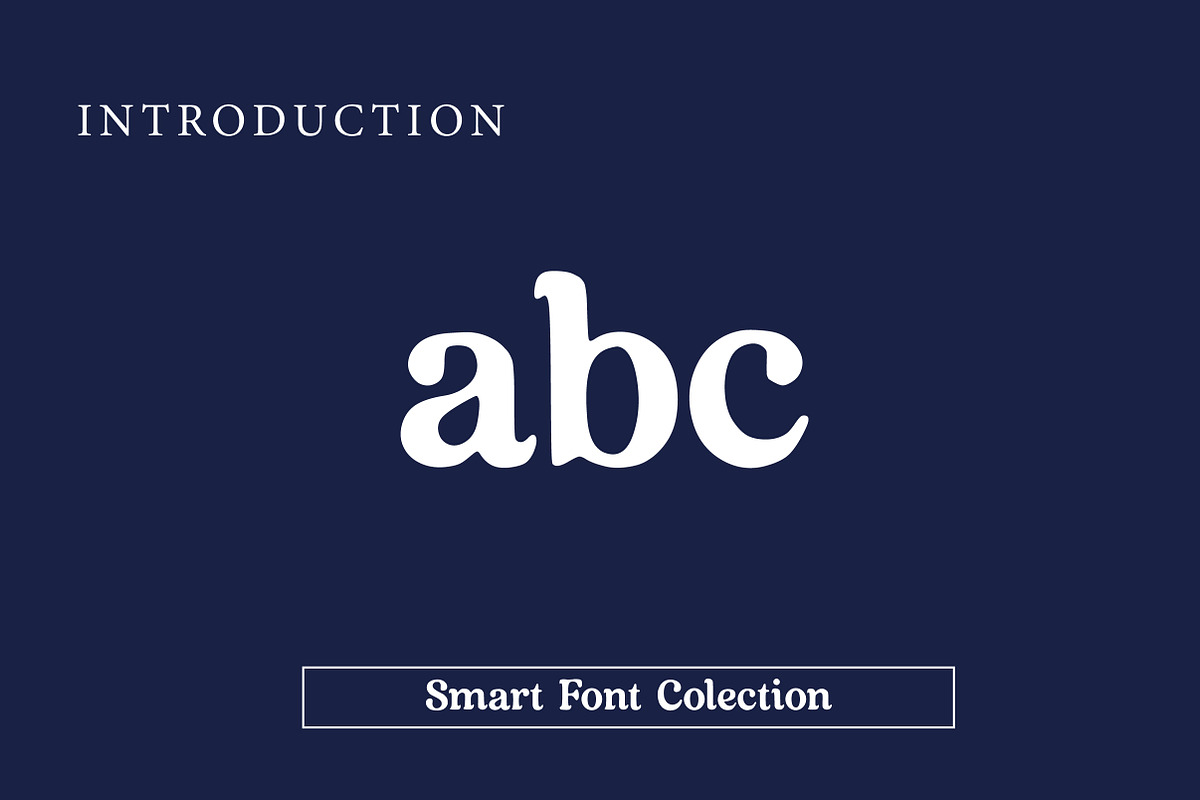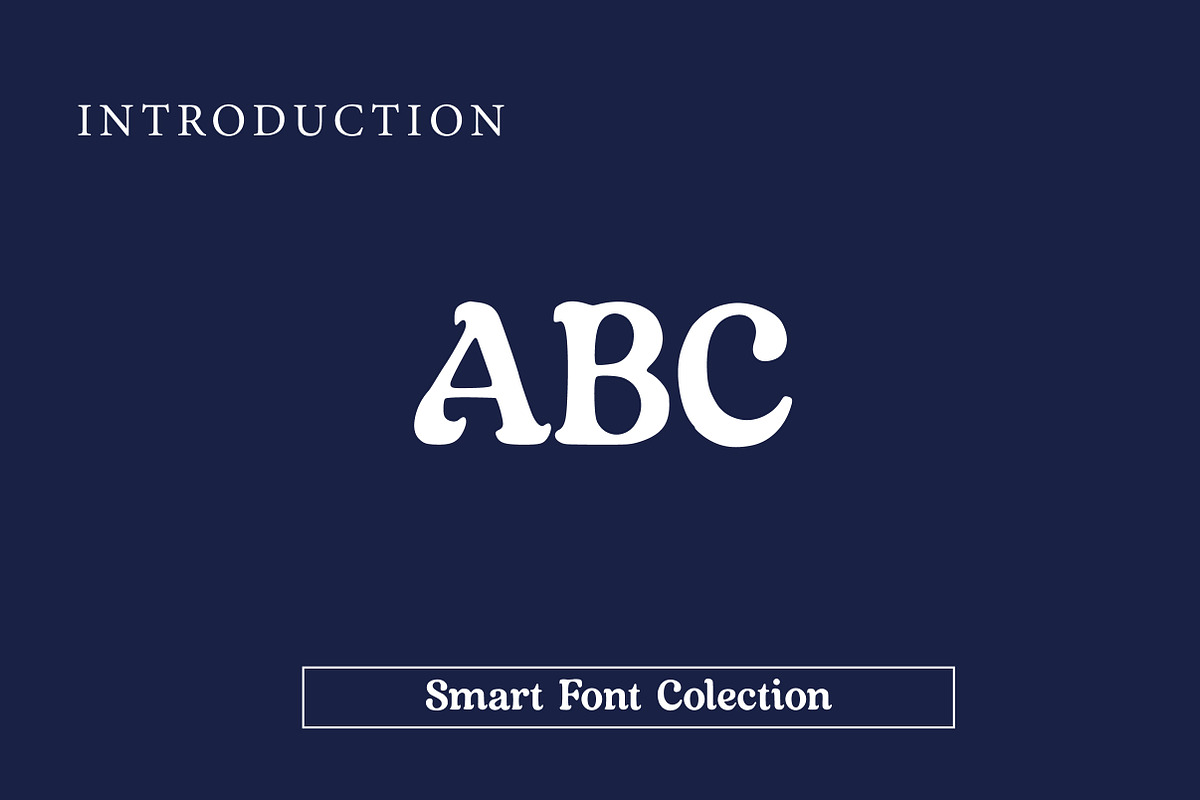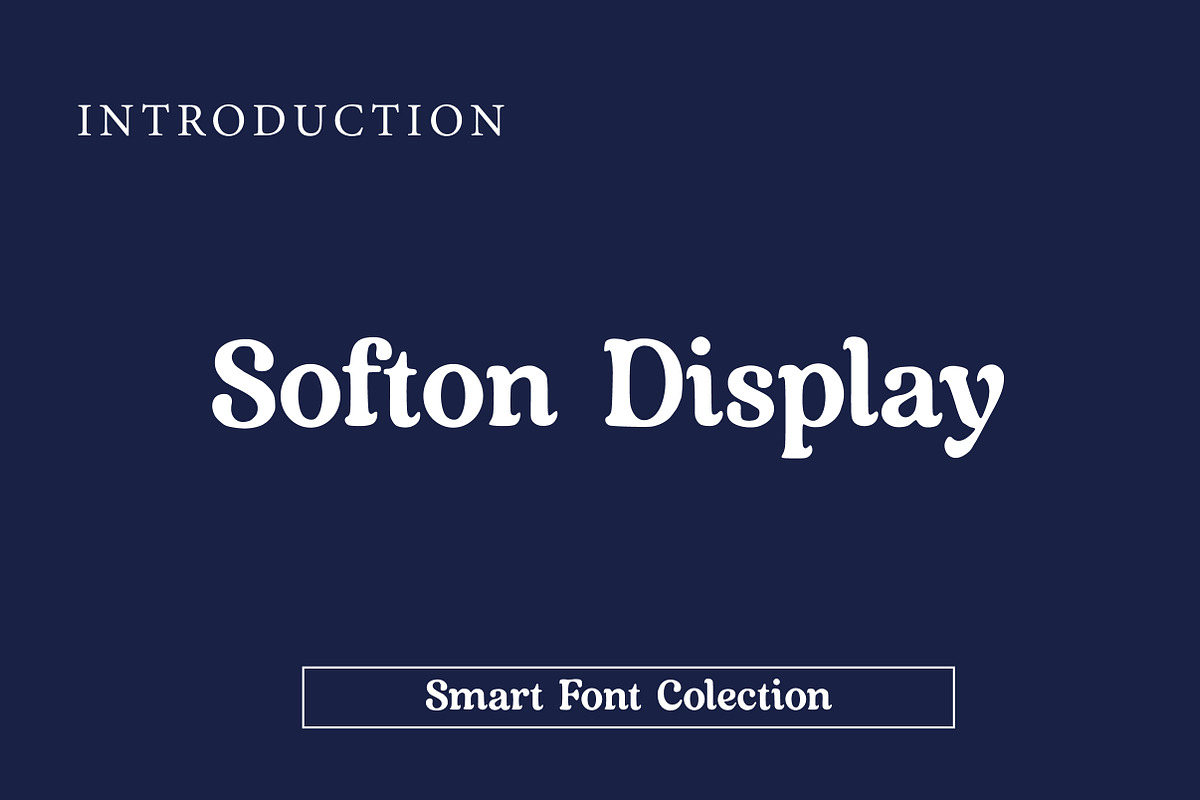
Softon Display
Softon Display is a bold and elegant display typeface that blends soft curves with a classic serif structure. Its smooth, rounded details and slightly vintage character give the font a warm yet confident personality. Designed for strong visual impact, Softon Display works perfectly for headlines, branding, logos, posters, editorial titles, packaging, and modern retro designs. The font balances readability with decorative charm, making it suitable for both contemporary and classic-inspired projects.